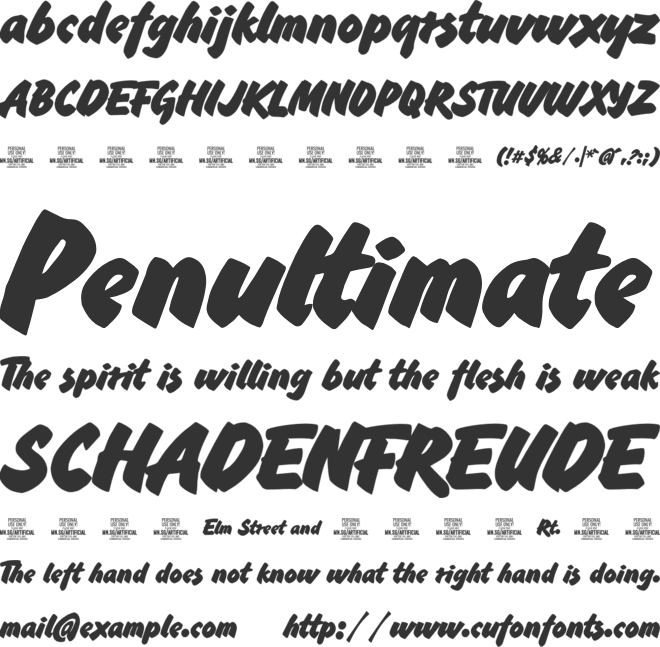
Artificial Intelligence PERSONAL USE Font
Mans Greback
As the world's first public and commercially available AI typeface, Artificial Intelligence celebrates the interaction between humanity and technology, in an attempt to blur the lines between hard data and interpretation.
This machine learning font is created from training a model on 400 of Mans Greback's fonts.